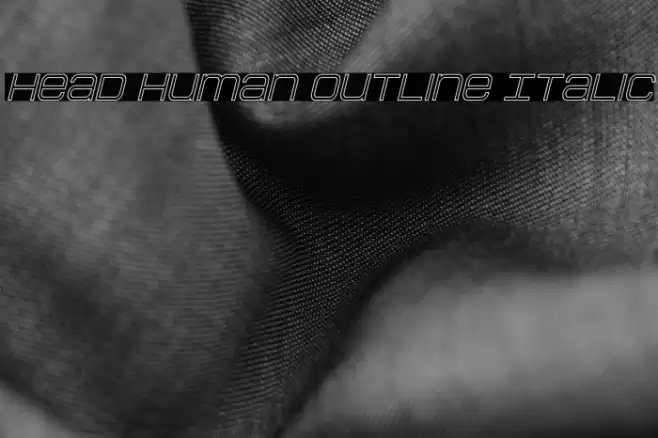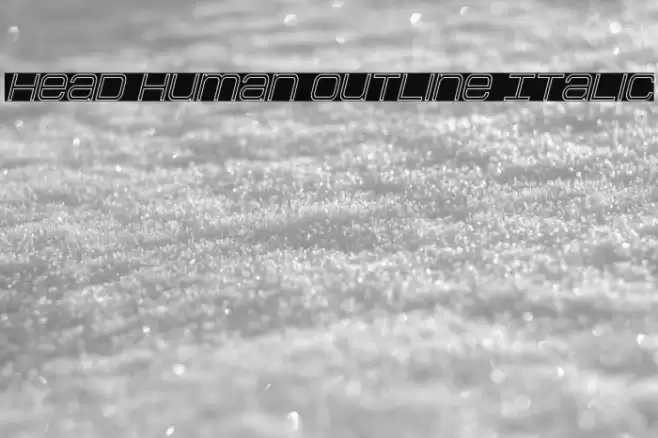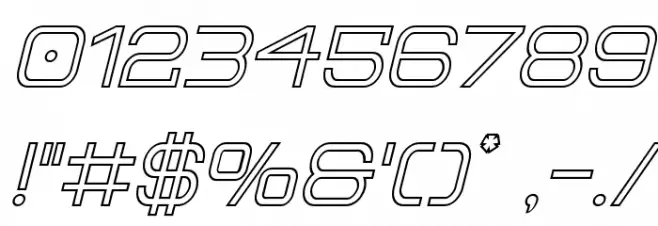
Head Human Outline Italic Font
Head Human Outline Italic Description
This font features a modern, geometric design with a distinct italic slant, giving it a dynamic and forward-moving appearance. The characters are outlined, creating a hollow effect that adds a sense of depth and dimension. The uppercase and lowercase letters maintain a consistent style, with clean lines and sharp angles. The numerals and special characters are designed to match the overall aesthetic, ensuring a cohesive look across all text. This font's unique outline style makes it stand out, making it suitable for creative and eye-catching designs.
A modern, italic, geometric outline font with a dynamic and cohesive design from Uncategorized fonts.
- Proposed Projects: Ideal for futuristic branding, tech-related projects, posters, and digital media where a modern and distinctive look is desired.